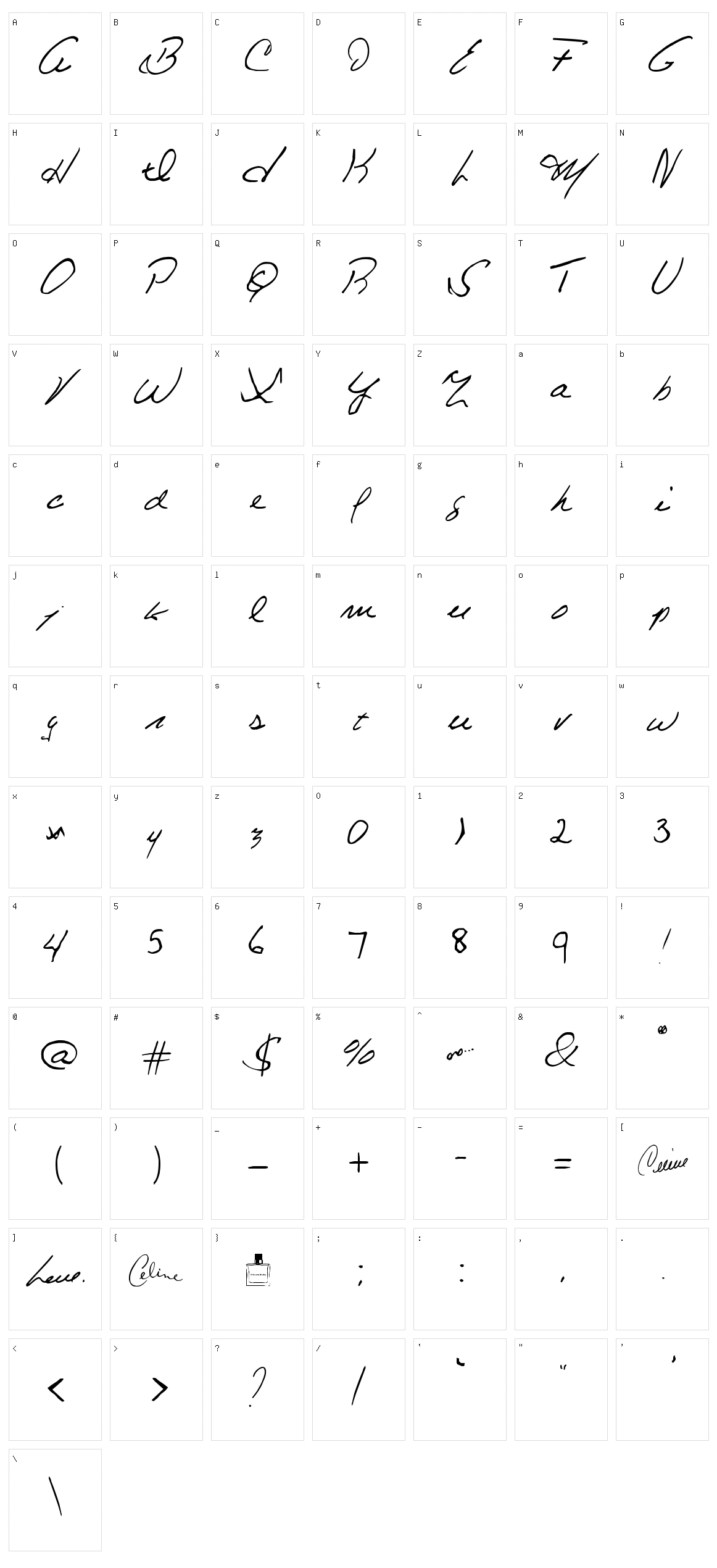
The free font Celine Dion Handwriting is carefully designed by Leanne van der Wel, showcasing a thoughtful balance of creativity and usability and falls under the Script font style. When you download the ZIP file, it contains only 17.91 KB of font files, making it lightweight and quick to download. Please review the license details below to understand permitted usage and distribution rights. If license information is not available, we recommend using this font for personal projects only or contacting the author directly for commercial usage permissions.